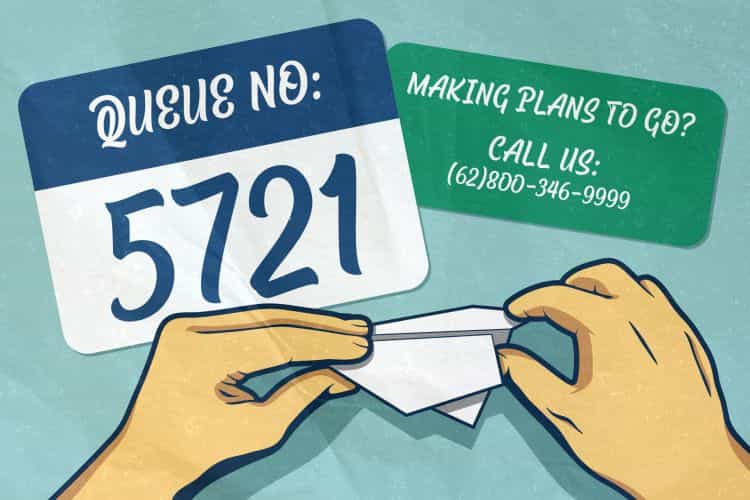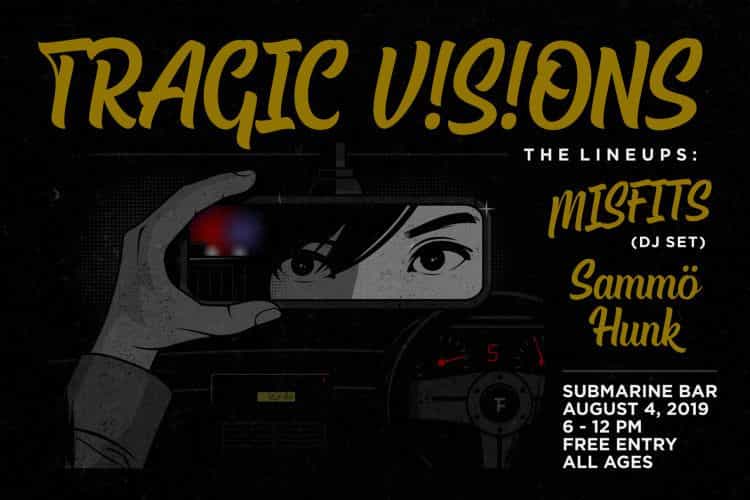
Discover Chuck Noon Script Font, part of the Brush Calligraphy collection—a versatile and unique font perfect for adding a personal touch to your projects. Download it for free and enjoy crafting designs with style, from invitations to social media posts. This font is available exclusively for personal use, giving you the freedom to create without limits. Unlock your creativity with Chuck Noon Script Font today!
Chuck Noon is a clean and a bold script. Great in a cool design, it will give a retro look on it!